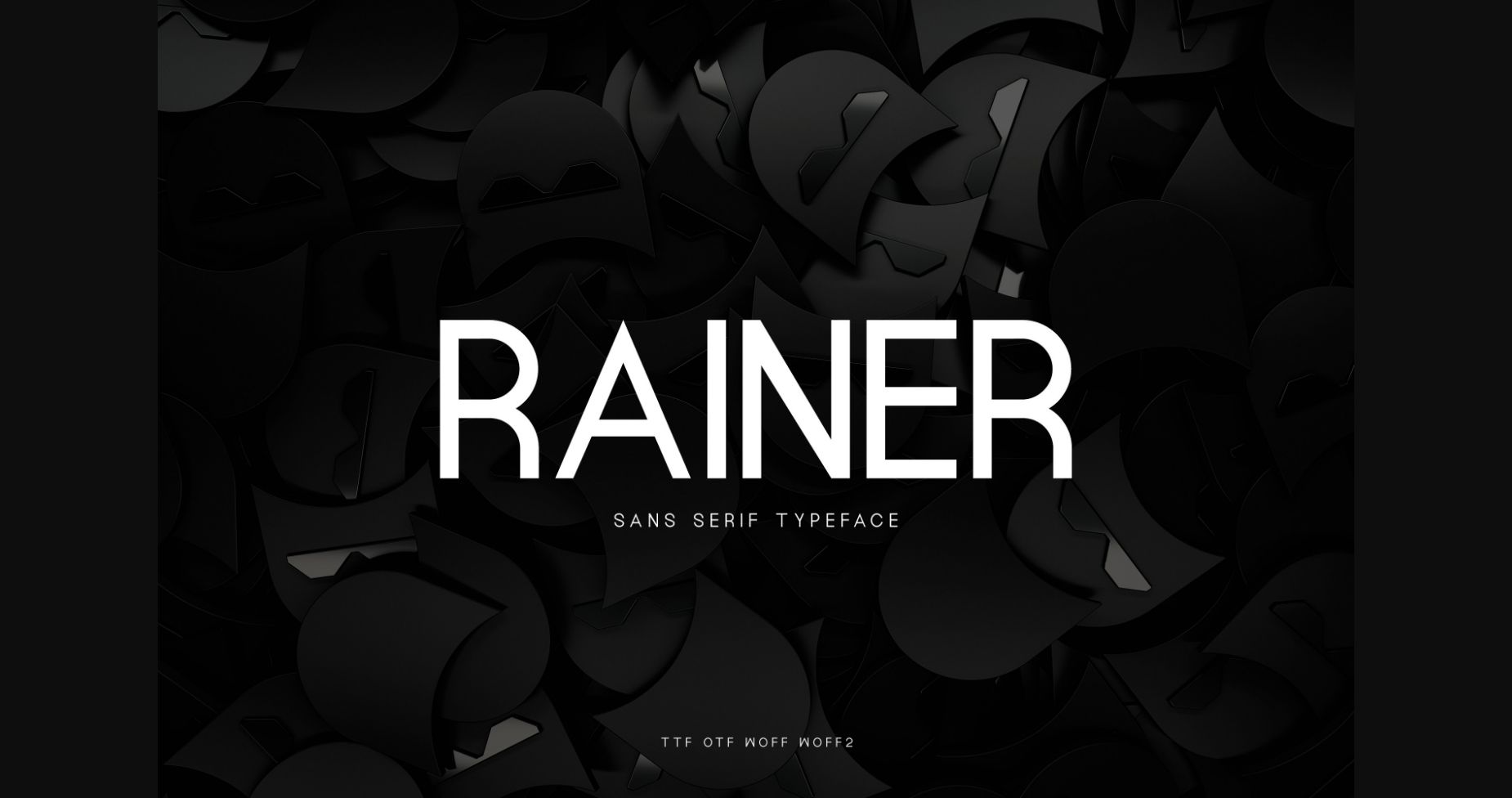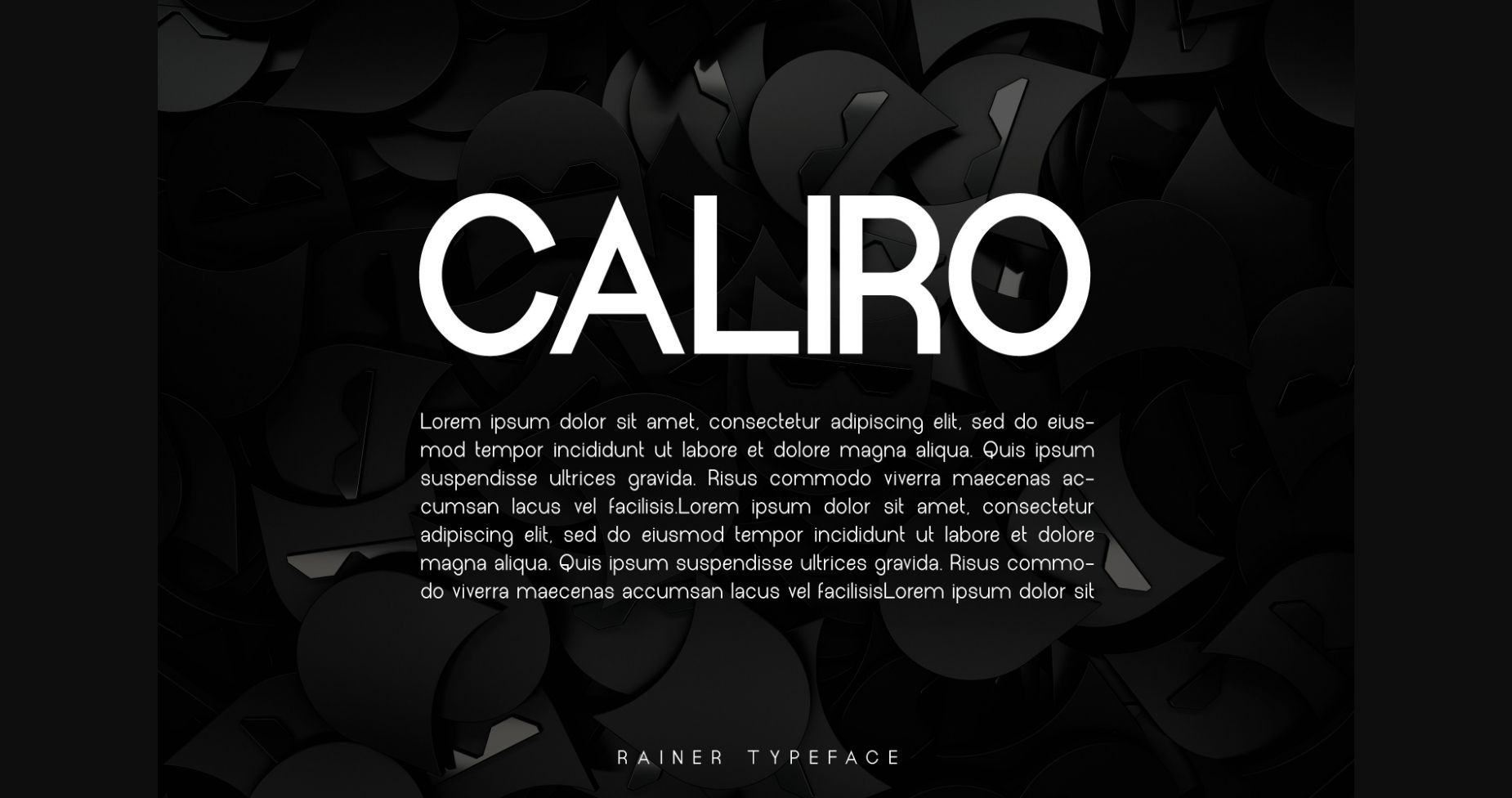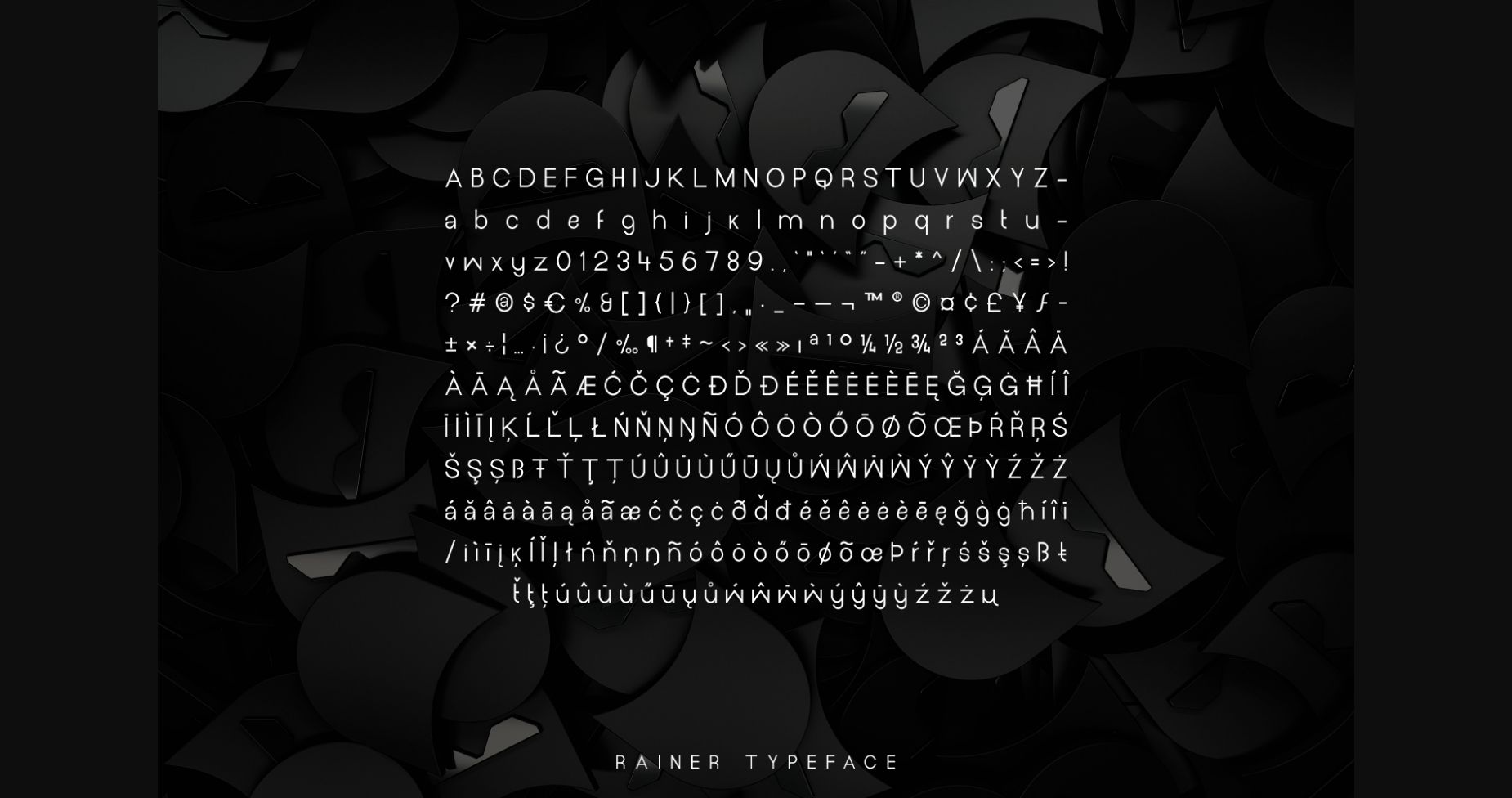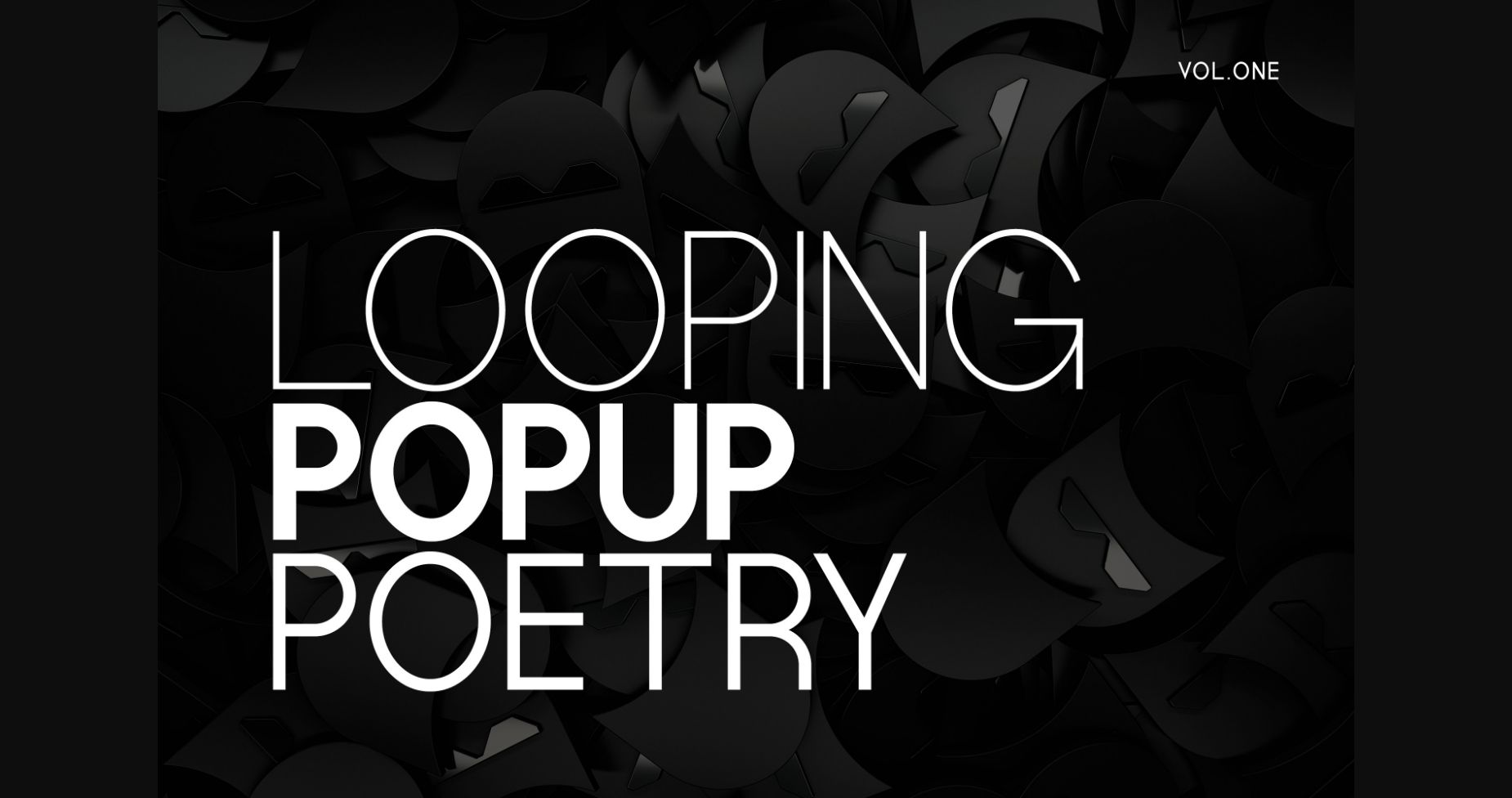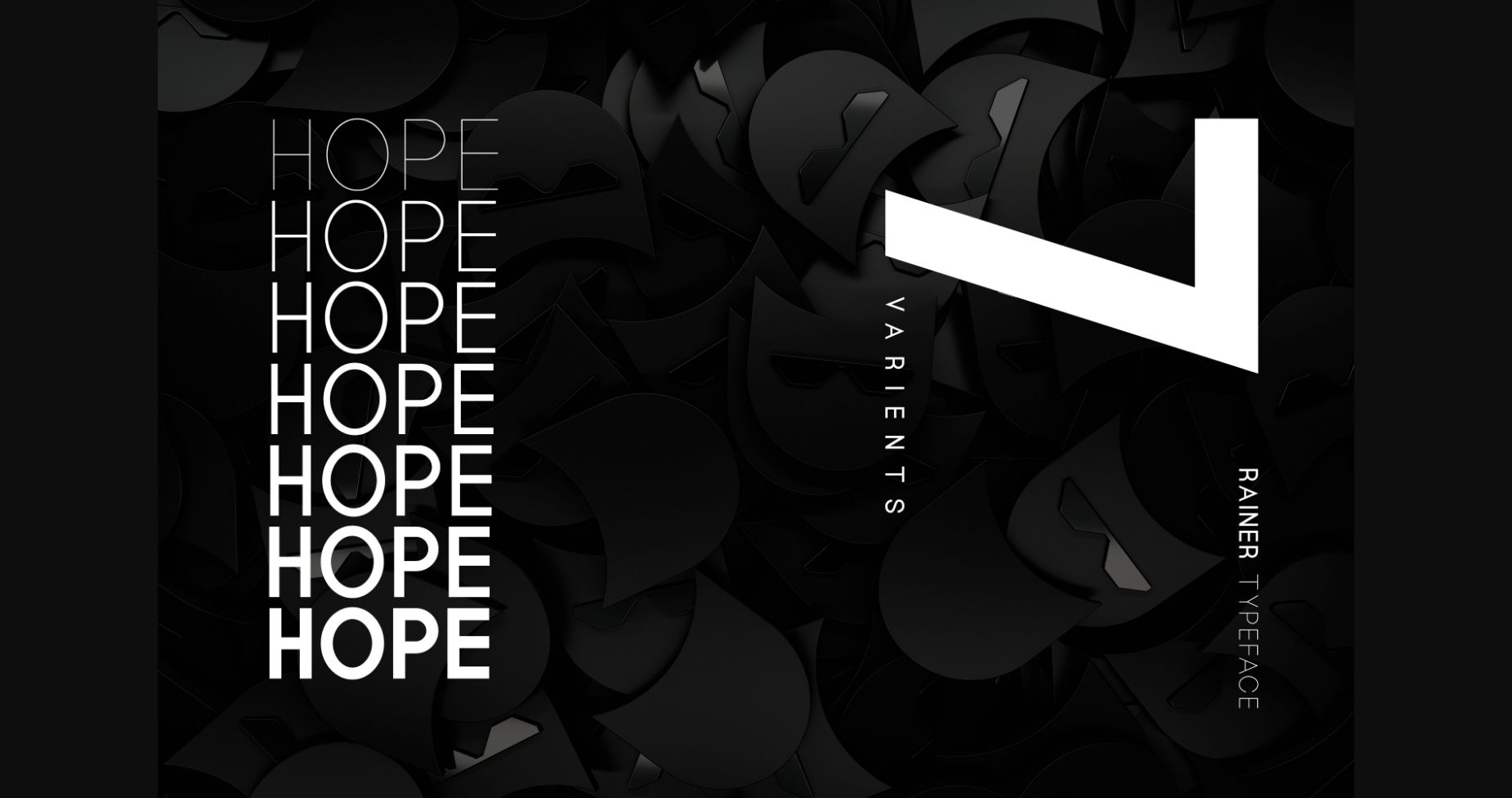
HomeSans Serif FontsRainer Font Sans Serif Fonts Rainer Font FacebookXPinterestWhatsApp 1 of 7 ... Rainer Font Poster 2... Rainer Font Poster 3... Rainer Font Poster 4... Rainer Font Poster 5... Rainer Font Poster 6... Rainer Font Poster 7... About Rainer Font Rainer is a clean and neat sans serif font. It has a simple, thin and smooth vibe and it will be a hit for any design that you want to add it to. DOWNLOAD NOW People also explored Briansta Font Bonnie Font Marhaban Font Ayesha Font Bloena Font Beauty Orange Font Simple Font Nutara Font The Manggo Font 313 0 TagsRainerRainer Font Previous articleSenopati FontNext articleNicko Font LEAVE A REPLY Cancel reply Comment: Please enter your comment! Name:* Please enter your name here Email:* You have entered an incorrect email address! Please enter your email address here Website: Save my name, email, and website in this browser for the next time I comment. Personal Use Free Homelands Personal Use Free Read more about this font Round Geometric Personal Use Free Read more about this font Pasile Personal Use Free Read more about this font Special Day Personal Use Free Read more about this font BLOG Fonts That Capture the Spirit of New York City New York City is more than just a place—it’s an experience, a rhythm, a visual language... Transform Your Website: Elevate Your Typography with 7 Best Web Font Generators Exploring Font Trends 5 Fonts That Will Dominate Design Trends in 2026